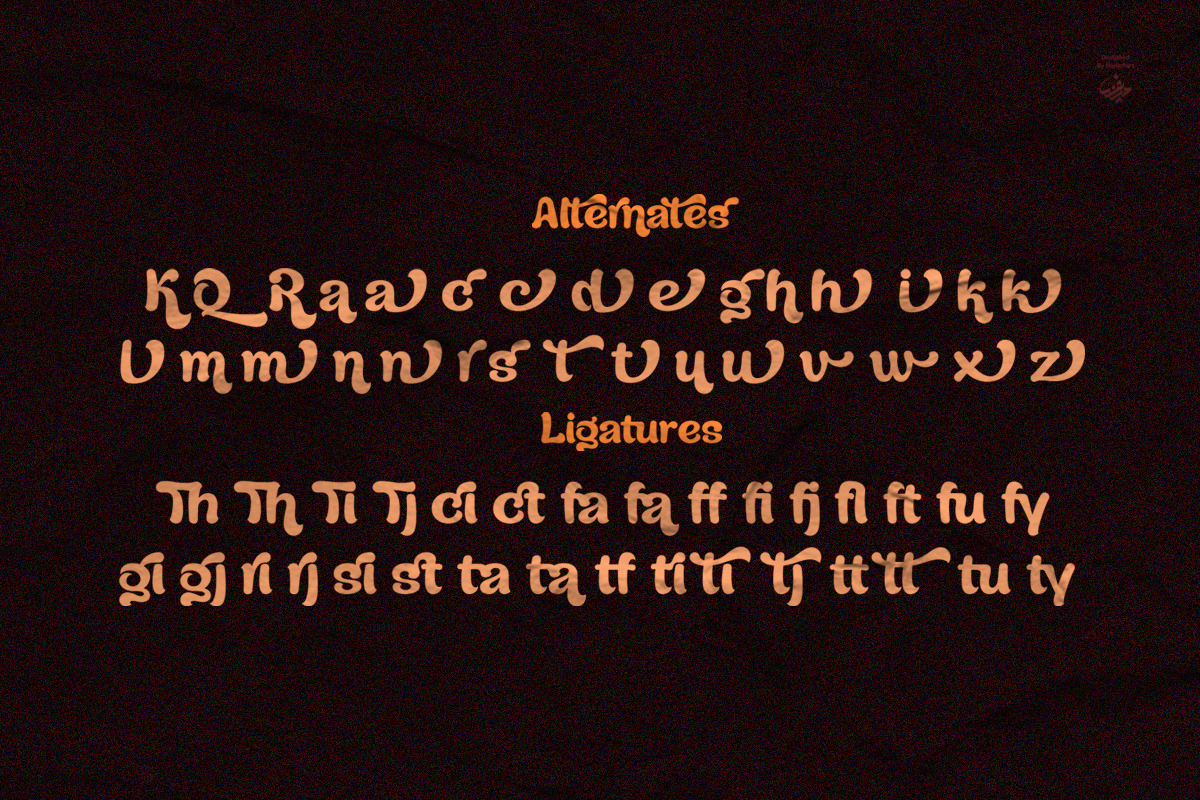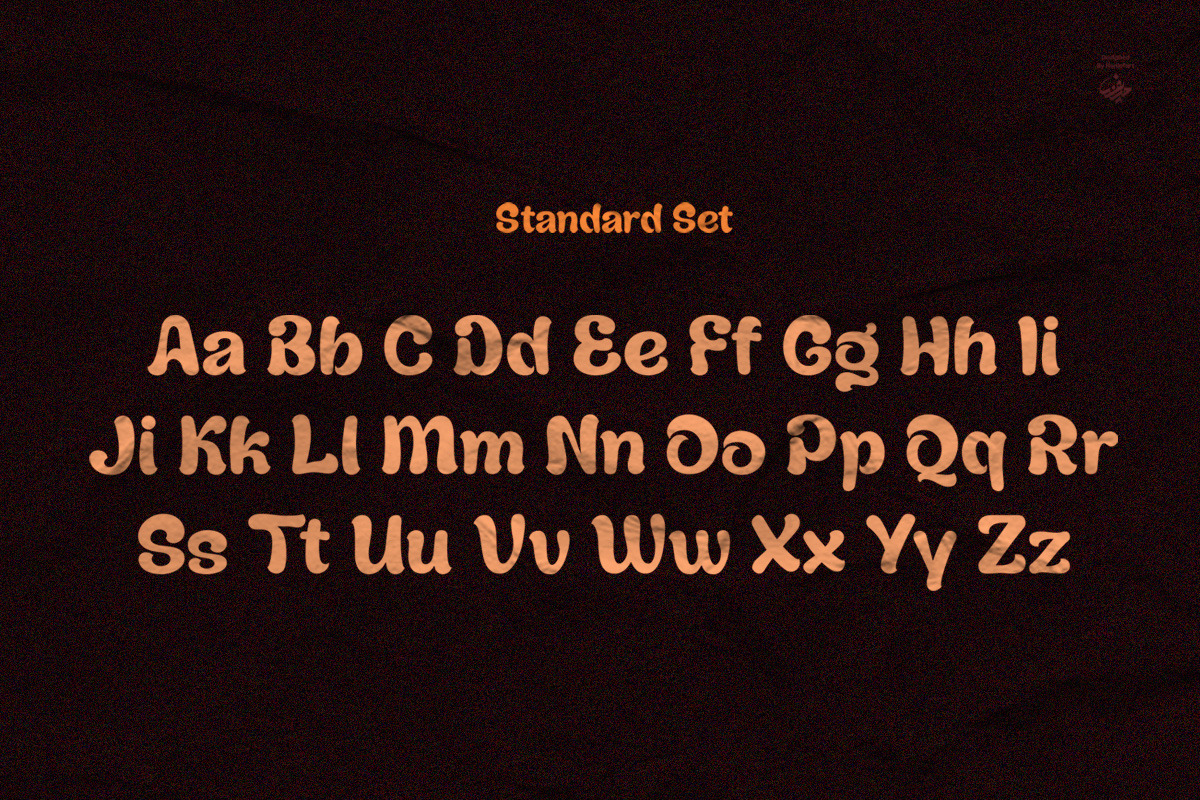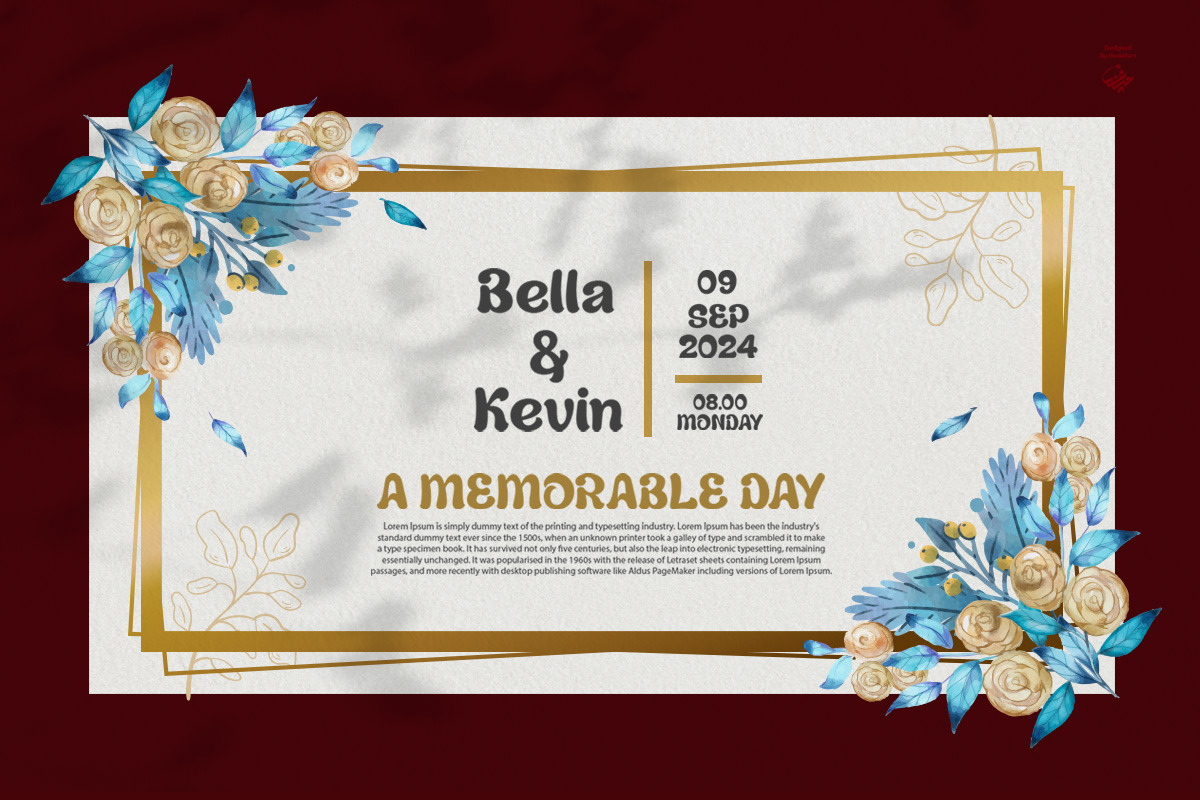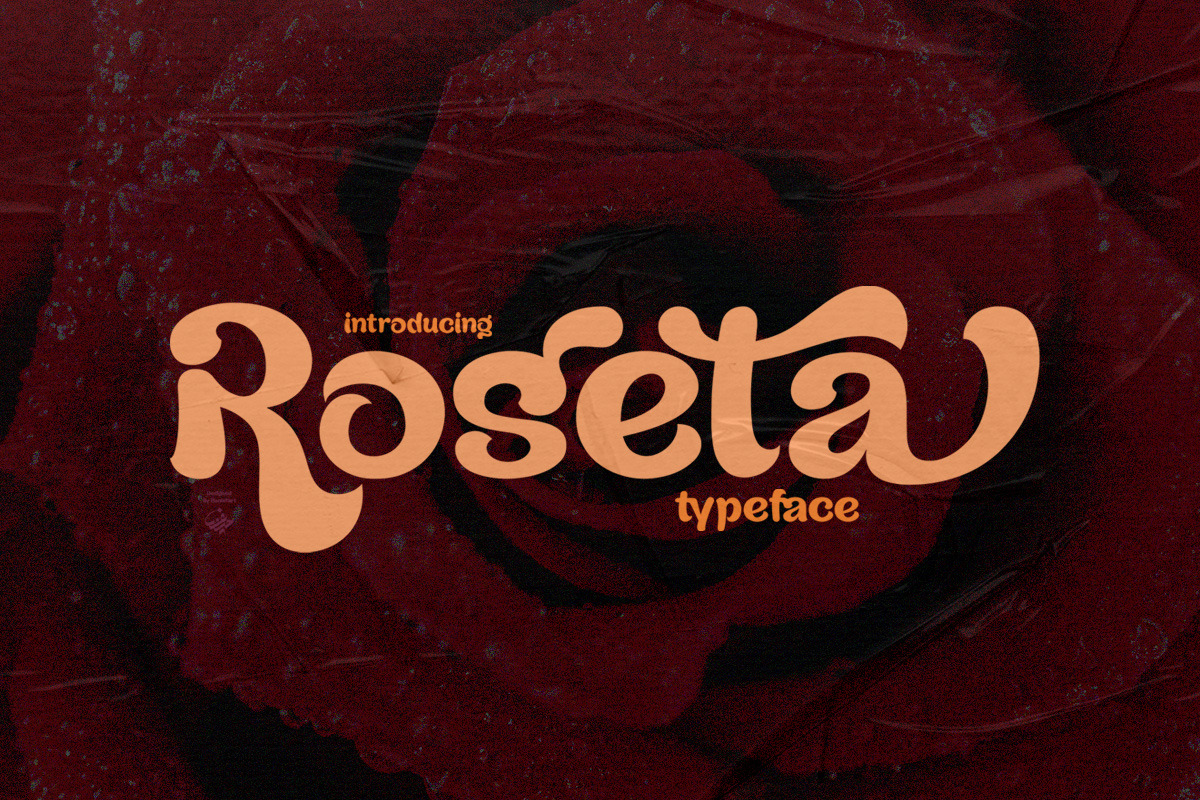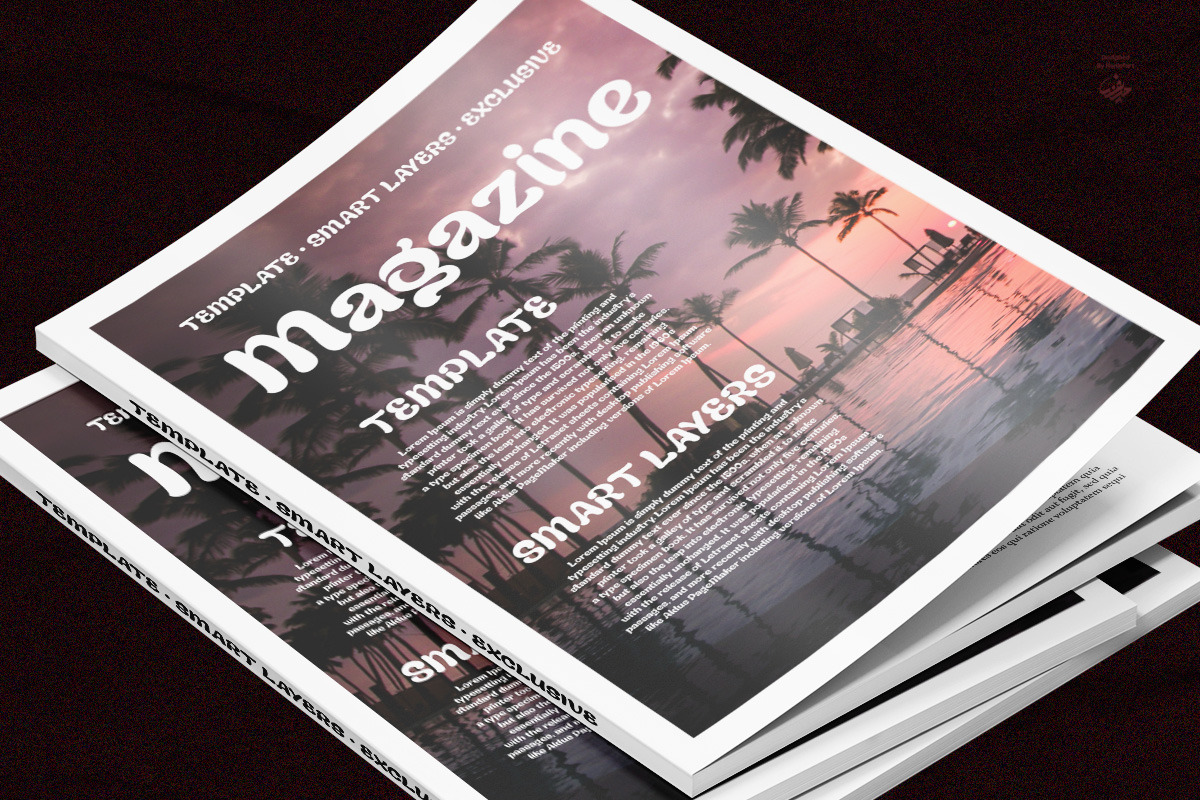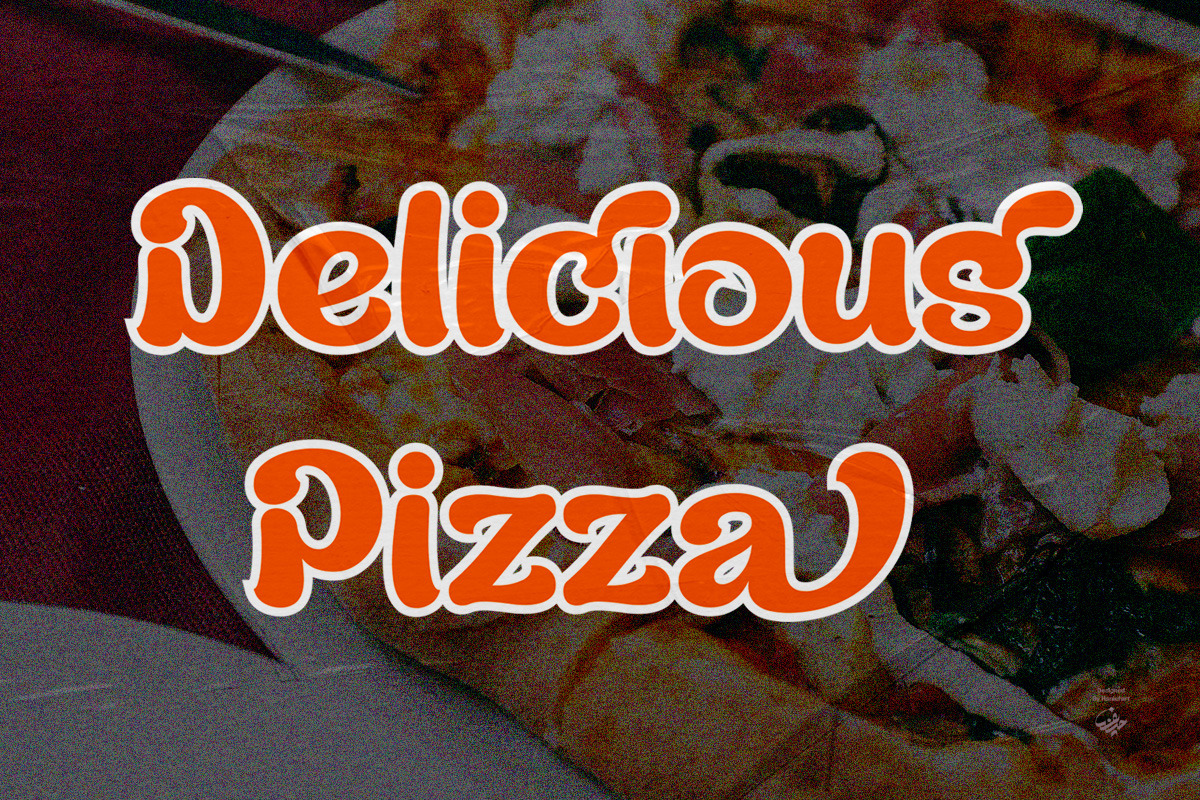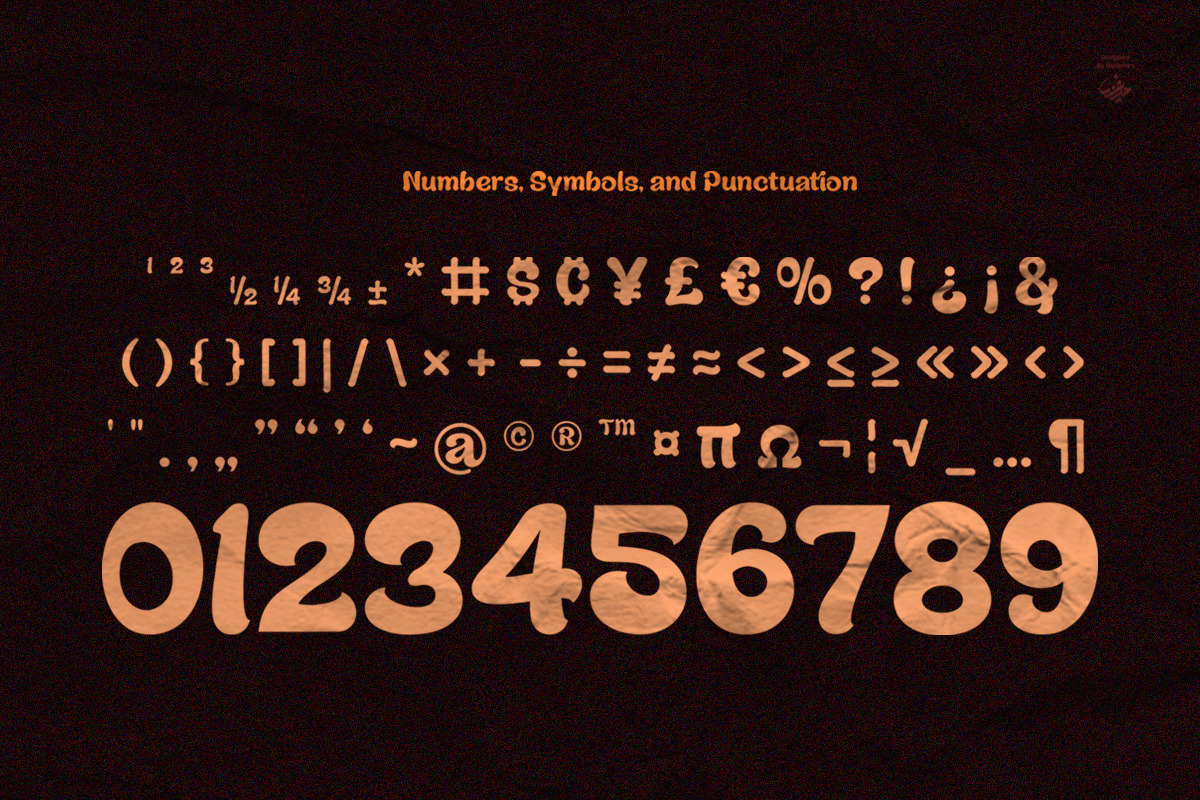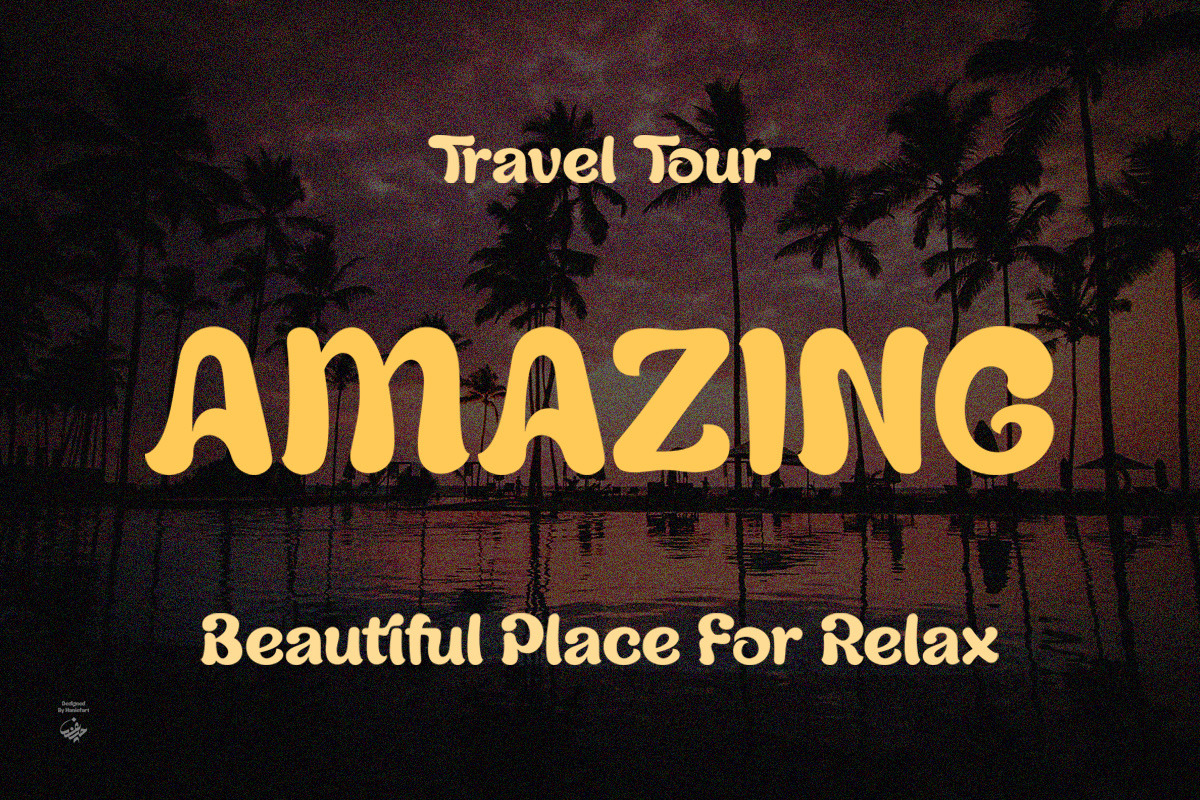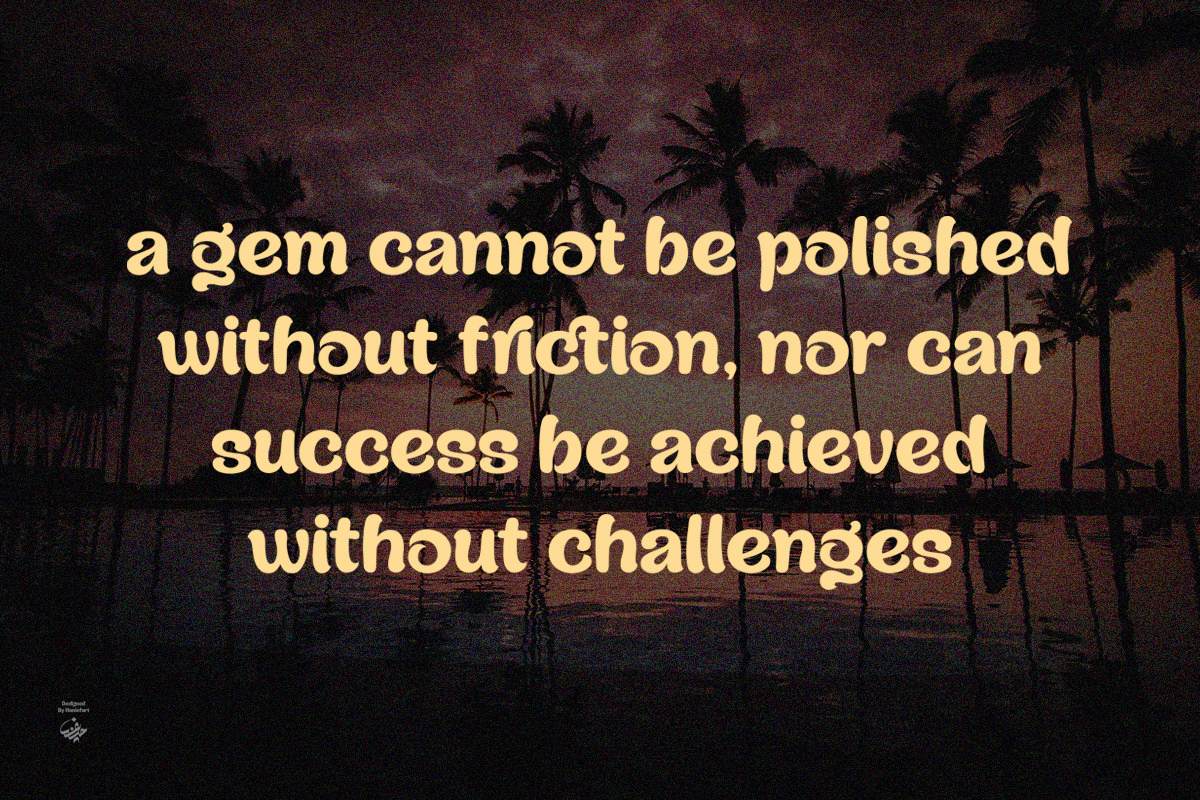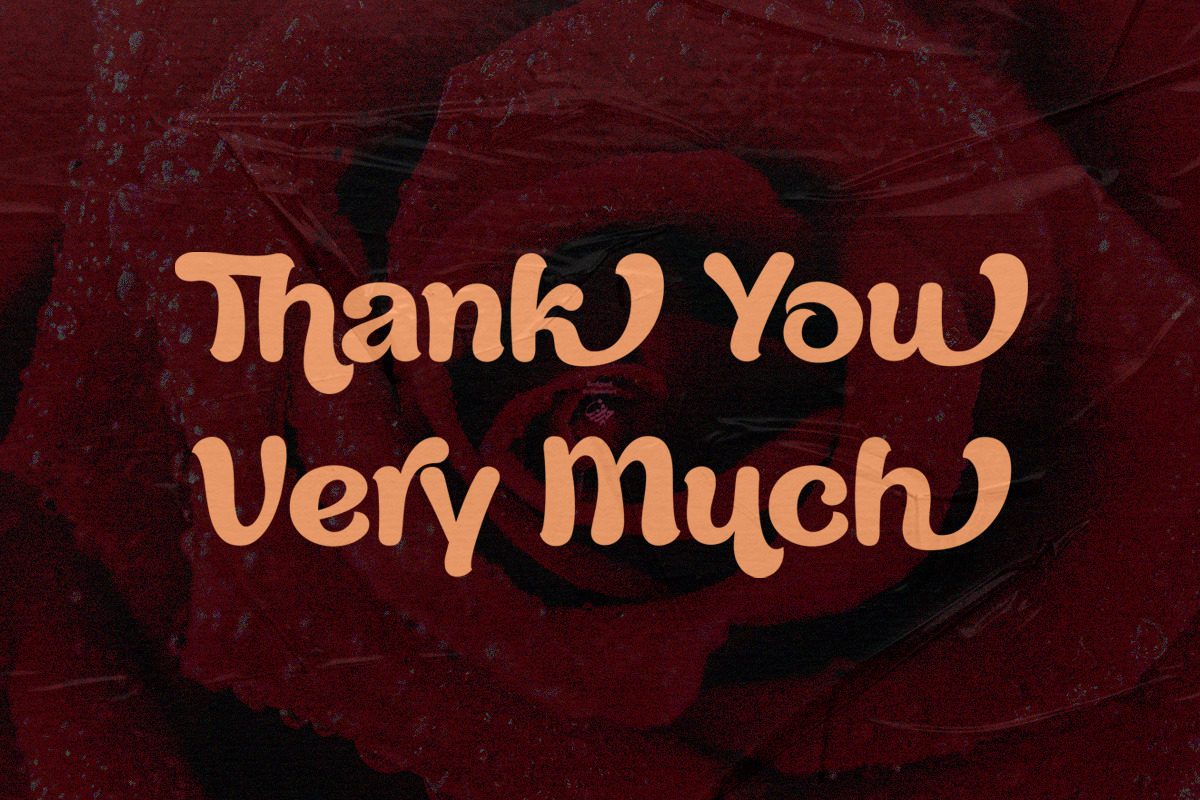
Roseta - Handwritten Font
Roseta is a hand-crafted typeface that features uniqueness and modernity. Its elegant aesthetic makes it a perfect choice for a variety of media such as decorating magazine titles, invitation cards, wedding invitations, business brands, comic books, banners, and even for t-shirts, and more. Roseta will give a beautiful and elegant character charm to every project you do.